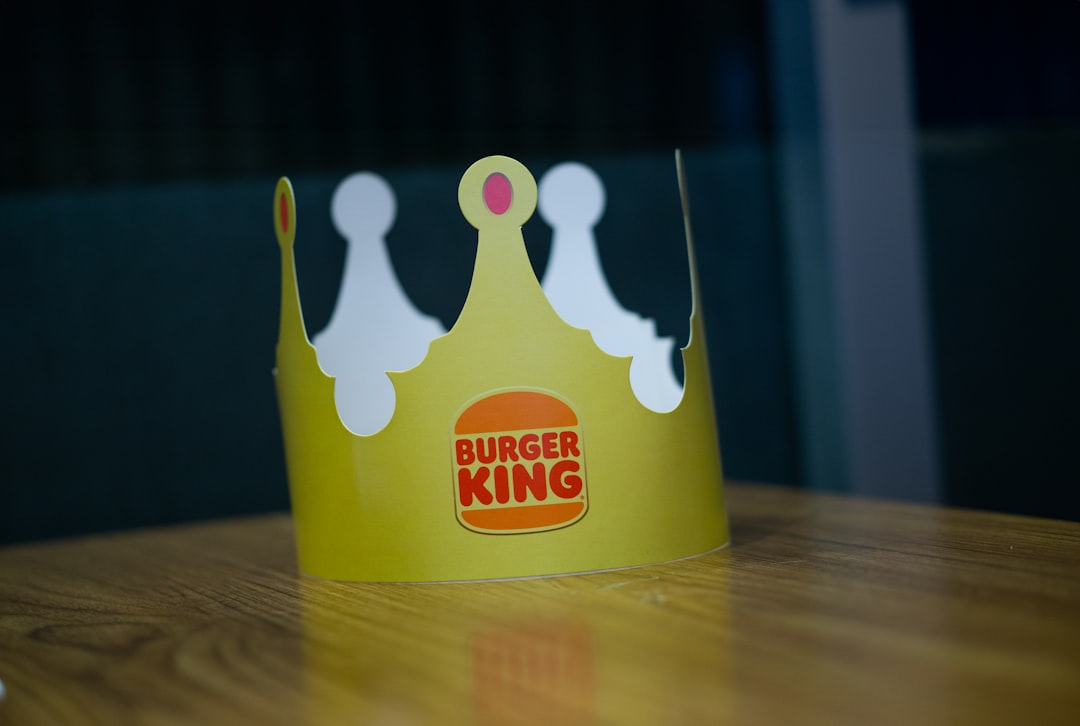
What Font Does Burger King Use? (2026)
What Font Does Burger King Use?
Quick answerThe current Burger King font is Flame Sans, a custom, chunky, retro-rounded sans-serif created for the brand’s 2021 rebrand by design agency Jones Knowles Ritchie. The logo wordmark itself is custom-drawn lettering, not a font you can download. To get a similar look for free, use a rounded bold sans such as Baloo 2 or Fredoka.
The Burger King font is one of the most talked-about pieces of fast-food typography because the chain’s 2021 rebrand leaned hard into warm, retro, hand-drawn-feeling type. If you are trying to identify or recreate that look, the short version is that Burger King uses a proprietary typeface called Flame Sans plus a custom wordmark — neither is available for public licensing. Below we break down exactly what is used where, and which free fonts get you closest. For more brand breakdowns, see our hub on famous brand fonts.
What font is the Burger King logo?
The Burger King logo wordmark is custom lettering, not a stock font. The 2021 identity — which revived the bun-and-burger emblem the brand used from 1969 to 1999 — pairs that retro logo with thick, rounded letterforms that look like they were squeezed between two buns. The curves are deliberately soft and the spacing is tight, giving the mark its friendly, appetizing character. Because it is drawn artwork registered as a trademark, you cannot download “the Burger King logo font”; you can only approximate its feel.
What is Flame Sans, Burger King’s brand typeface?
Flame Sans is the bespoke typeface the agency Jones Knowles Ritchie designed to carry the rest of the system — menus, packaging, signage, advertising, and digital. It shares the wordmark’s DNA: chunky weights, rounded terminals, and a slightly retro, 1970s-flavored warmth meant to feel handmade and craveable rather than corporate. Flame Sans comes in a range of weights so it can handle everything from a giant in-store headline to small packaging copy. Like the logo, it is proprietary to the brand and is not sold to the public.
Why did Burger King choose this style?
The rebrand was a deliberate move away from the glossy, blue-accented, gradient-heavy logo Burger King had used since 1999. The goal was to look more natural and food-forward — the kind of typography you might expect on a craft burger joint’s hand-painted sign. Rounded, bold type reads as approachable and nostalgic, and it photographs well on packaging and social media. This is a common strategy in food branding: soft, rounded letterforms feel warm and edible, where sharp geometric type can feel cold. If you want to understand why brands commission their own faces instead of licensing one, our font licensing guide explains the trade-offs.
Free fonts that look like the Burger King font
You cannot legally use Flame Sans or the logo lettering yourself, but several free Google Fonts capture the same chunky, rounded, retro warmth. Match the role first — a heavy display weight for headlines, a friendlier rounded sans for body.
Use case Burger King uses Free alternative
Logo / big headlines Custom wordmark + Flame Sans (bold) Fredoka (heavy, rounded)
Packaging & menu display Flame Sans Baloo 2
Body / supporting copy Flame Sans (regular) Nunito (soft, rounded sans)
Playful retro accent Custom lettering Chango or Bowlby One SC
Baloo 2 is the closest single free match — a bold, rounded, friendly sans with the same squeezed warmth. Fredoka (formerly Fredoka One) gives you the heavy, bubbly display weight for big headlines. For longer copy, Nunito keeps the rounded feel while staying readable at small sizes. All three are free on Google Fonts and licensed for commercial use under the SIL Open Font License.
How to recreate the Burger King look
If you are building a retro, food-forward identity in the same spirit, the recipe is straightforward. Start with a heavy, rounded display weight for your main wordmark or headline — Fredoka in its boldest weight or Baloo 2 ExtraBold both read as warm and craveable. Tighten the letter-spacing slightly so the letters nestle together the way Burger King’s do; that snug fit is a big part of the “squeezed between two buns” feeling. Keep your color palette warm — reds, oranges, browns, and cream rather than cool blues — because Burger King’s 2021 system deliberately leaned into appetizing, natural tones to match the rounded type.
For everything below the headline, step down to a lighter rounded sans like Nunito so menus and packaging copy stay readable at small sizes. Resist the urge to mix in a second display face; the strength of the Burger King look is its restraint — essentially one rounded family used across every weight. If you need a genuinely custom wordmark rather than a font, hand-drawn lettering based on these shapes is the route Burger King itself took, and it is what makes a logo defensible as a trademark.
Can I use the Burger King font for my own project?
No — not the real one. Both Flame Sans and the wordmark lettering are proprietary brand assets, and the logo is a registered trademark. Using them outside of official Burger King materials risks both a licensing and a trademark issue. For your own restaurant or brand, pick a free rounded sans from the table above and draw your own wordmark, or commission custom lettering. If you are working on food or menu typography more broadly, our sibling guides on what font KFC uses and what font Dunkin’ uses cover the same rounded, appetite-driven approach.
Why did Burger King change its font in 2021?
Burger King moved to warm, rounded, retro type to look more natural and food-focused, replacing the glossy blue gradient logo it had used since 1999. Soft, chunky letterforms feel appetizing and approachable, which suits food branding and performs well on packaging and social media.